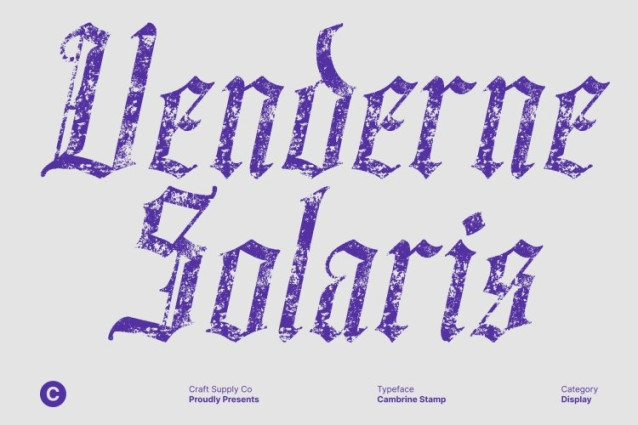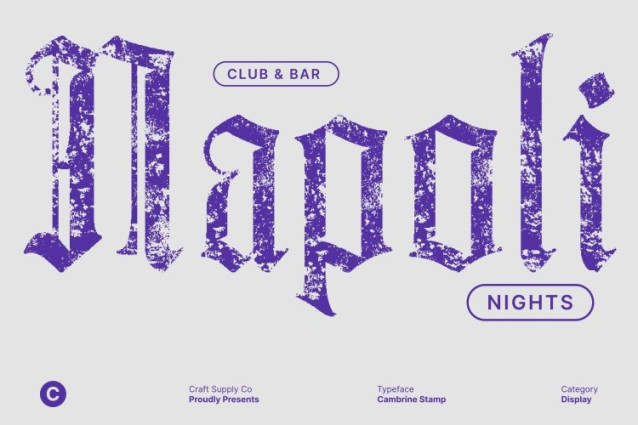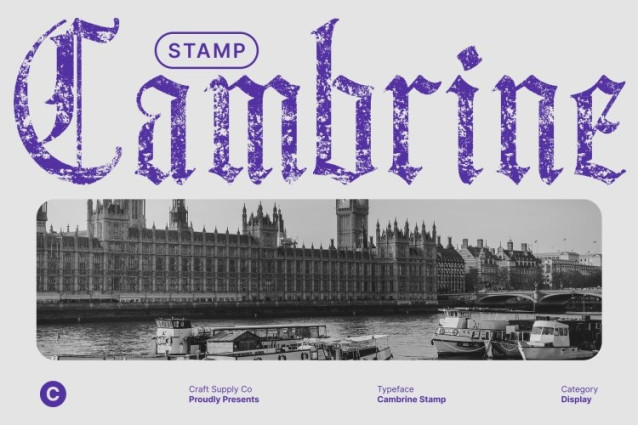
Cambrine Stamp Font
Cambrine Stamp Font A decorative Old English font crafted with rich ornamental strokes and classic medieval energy. Every letter is shaped with dramatic curves and sharp details, capturing the essence of ancient manuscripts and gothic artistry. Its distinctive character makes it instantly recognizable, perfect for designs that need historical depth and visual authority.
Stamp Texture for Authentic Handmade Expression
What sets this font apart is its stamp effect, adding a tactile, handcrafted texture to the traditional Old English form. This effect softens its heavy medieval presence while amplifying its dramatic vibe, creating a look that feels aged, raw, and full of personality.
Perfect for Gothic Posters, Titles, and Dramatic Branding
If you’re designing for themes involving mystery, fantasy, or heritage, this font is a perfect fit. Its bold, ornamental strokes shine in titles, gothic posters, album covers, themed events, or branding projects that aim to evoke power and tradition. It’s a typeface built for visual storytelling evoking knights, myths, folklore, and ancient scripts.
A Fusion of Heritage and Creative Modernity
This font seamlessly blends medieval sophistication with contemporary artistic expression. Its decorative shapes offer visual richness, while the stamp texture adds modern edge and creative depth. Whether you’re crafting dramatic visuals, historical aesthetics, or expressive gothic graphics, delivers a powerful typographic presence that leaves a lasting impression.